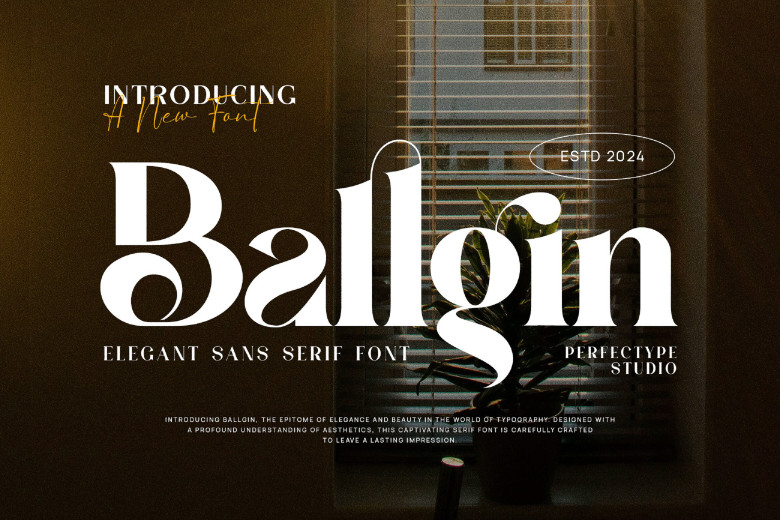
Ballgin Font
Ballgin is an elegant serif typeface with an aesthetic flair, making it the perfect fit for branding projects, logo and wedding design, social media posts packaging products and designing labels, photography watermarks invitations stationary projects requiring high levels of comprehension.
This font can also be found as part of watermark designs which add depth and dimension. It is suitable for branding needs as well.
Ballgin Serif Font